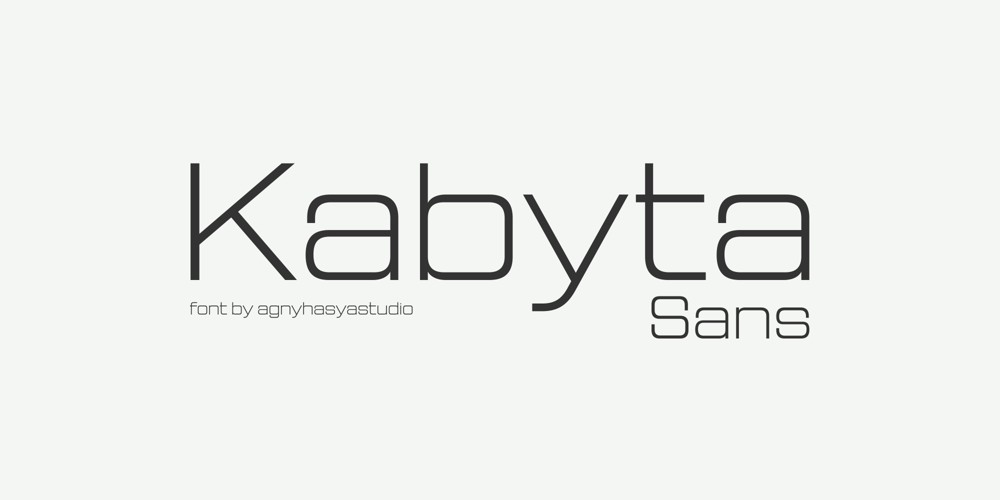
Kabyta Font Family was designed by Firman Maulana and published by Agny Hasya Studio. Kabyta contains 28 styles and family package options. Kabyta is a Sans serif typeface family, characterized by a modern, clean, simple aesthetic yet minimalist and professional look.It features uppercase and lowercase letters, numerals, punctuation, and OpenType features. It also supports multilingual characters,making it perfect for use in various languages.Kabyta is available in 28 font styles, which include seven upright weights (Light, Regular, Medium, Semi-Bold, Bold, Extra Bold, and Black)as well as italics and expanded style equivalents for all seven weights.Suitable for various design projects such as Web Design, UI Design, Logos, Business Branding, Marketing graphics, banners, posters, Advertising, Stationery, Corporate identities, Titles, Paragraphs, Digital displays, Esports, Sports, Games, Futuristic Technology concepts, and more.Best Regards,agnyhasyastudio